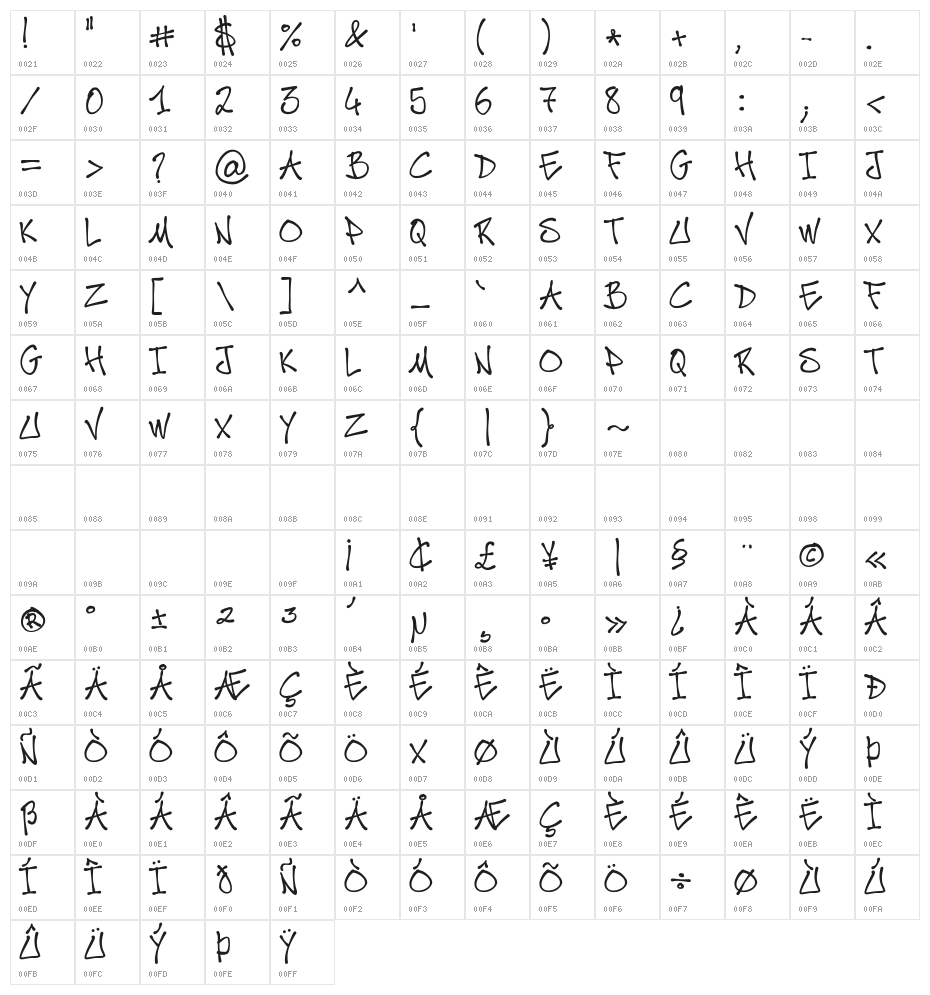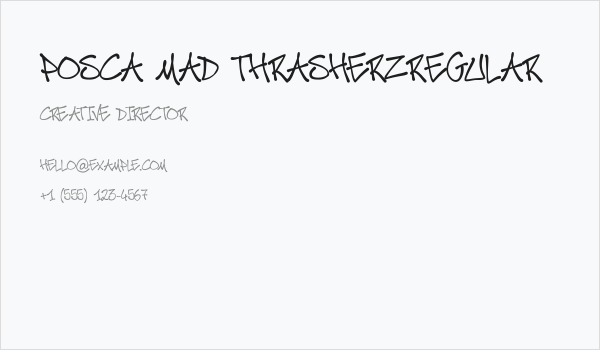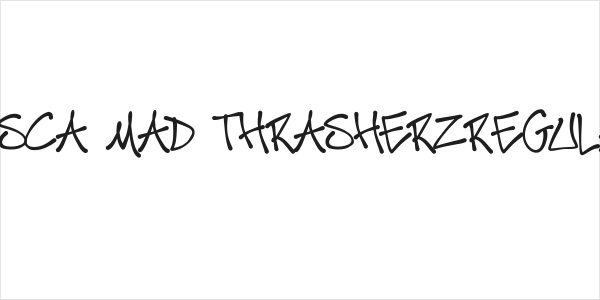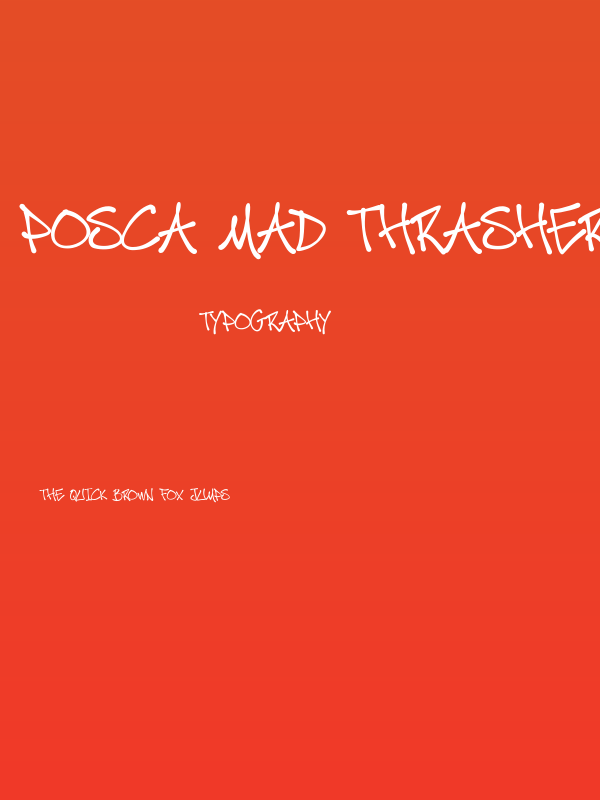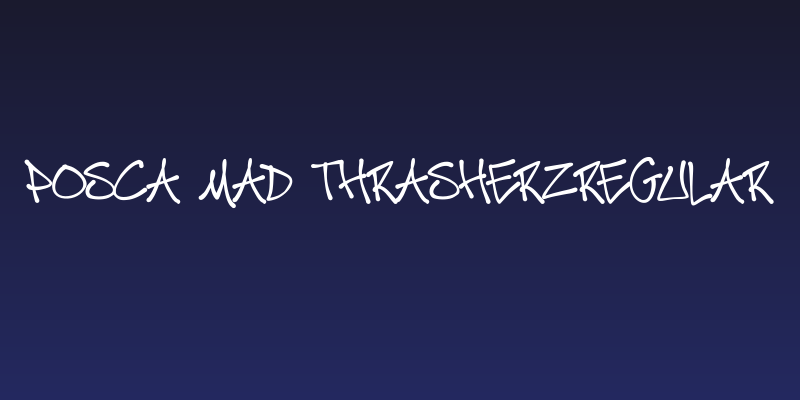
Posca Mad ThrasherzRegular Font
Posca Mad ThrasherzRegular Description
This font exhibits a bold, energetic style with a hand-drawn appearance, reminiscent of graffiti or street art. The characters are dynamic and slightly slanted, giving a sense of movement and spontaneity. The strokes are thick and consistent, with rounded edges that soften the overall look. The uppercase and lowercase letters maintain a cohesive style, while the numerals and special characters are equally expressive, adding to the font's playful and rebellious vibe. This font is ideal for projects that require a youthful, edgy aesthetic.
| Use Case | Logos, Posters, Headlines |
| Proposed Projects | Perfect for streetwear branding, music album covers, skateboarding graphics, and urban-themed posters. |